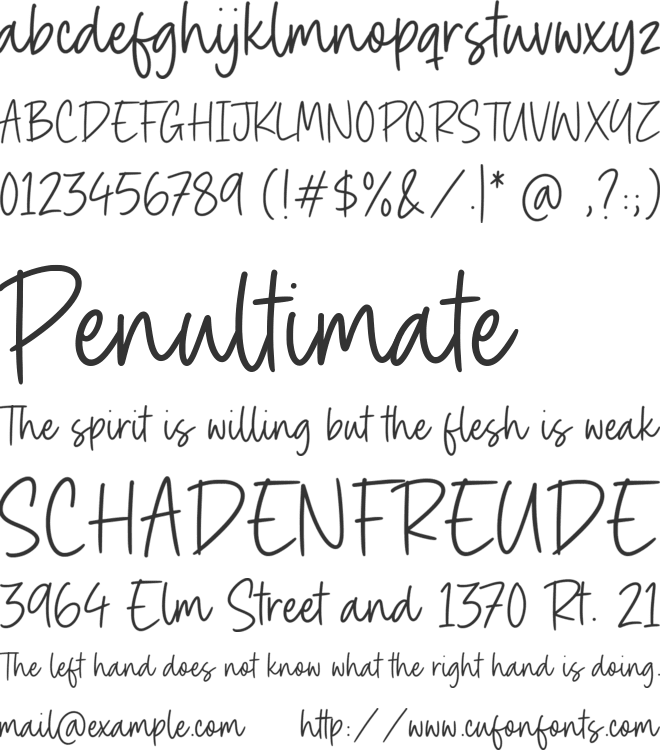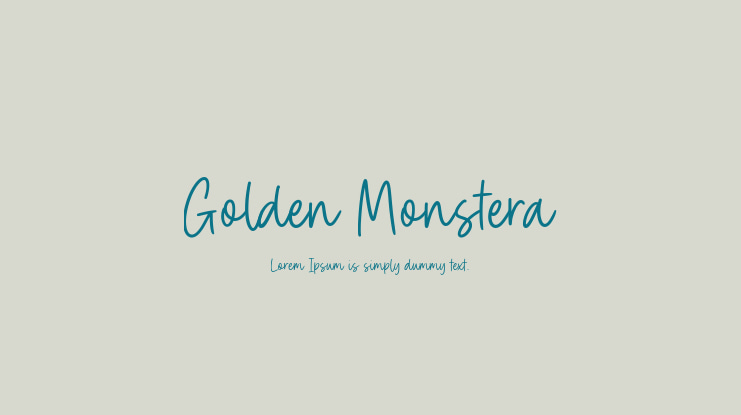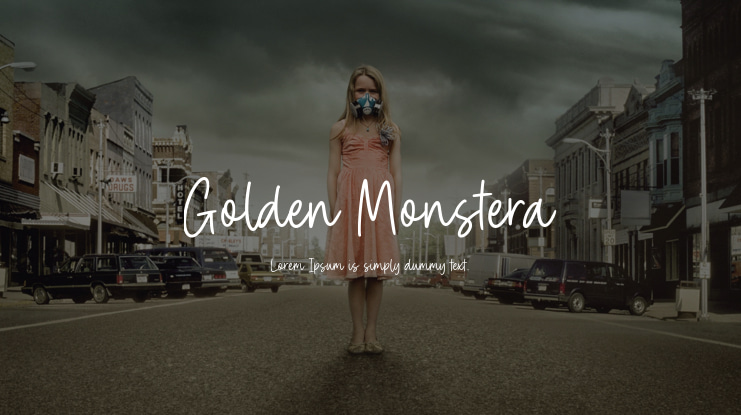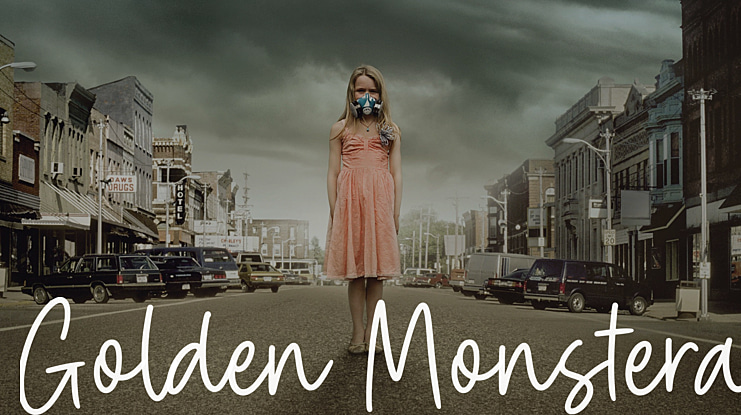
Golden Monstera Font
Introducing the Golden Monstera Handwritten Font, a modern and fresh script font that will bring a warm and inviting feel to your business. With its magical charm, this font is perfect for various purposes such as product packaging, branding projects, magazines, social media posts, weddings, and more.
Golden Monstera font preview